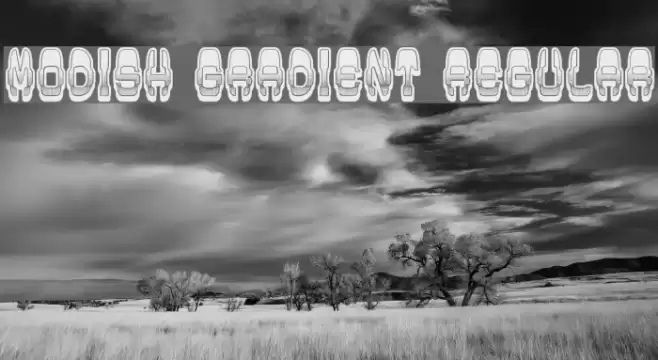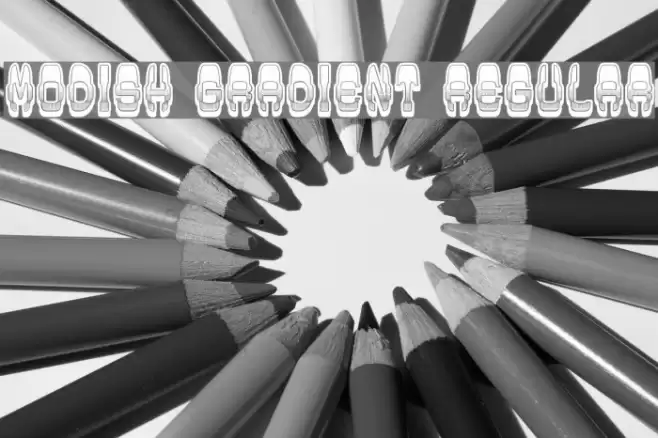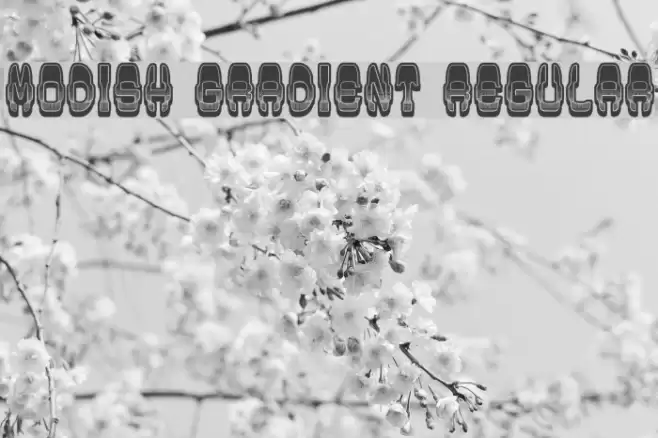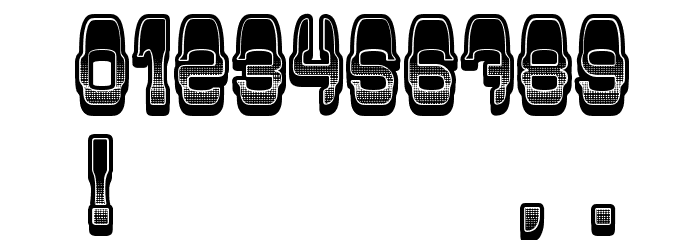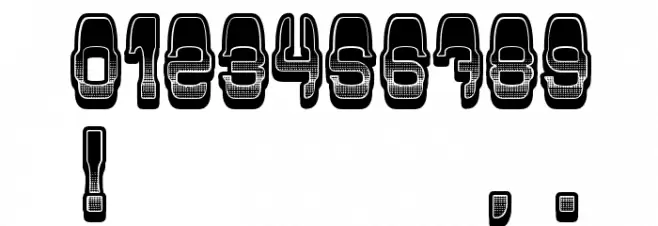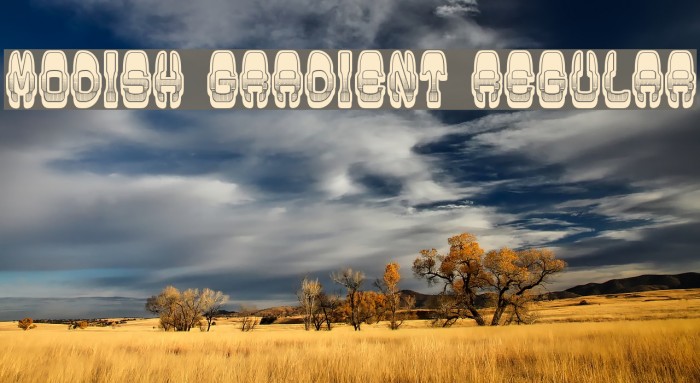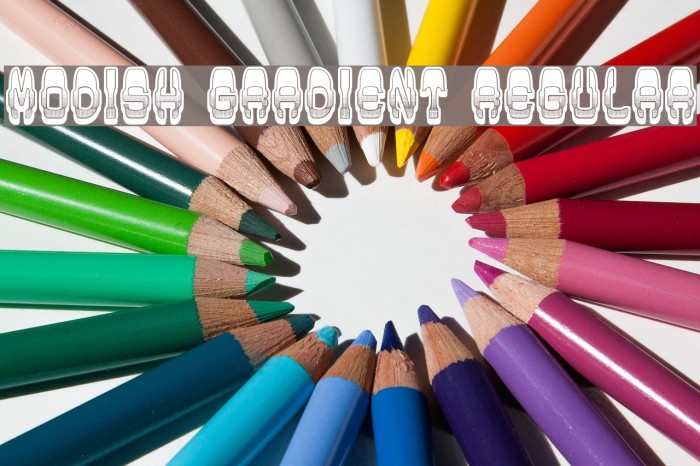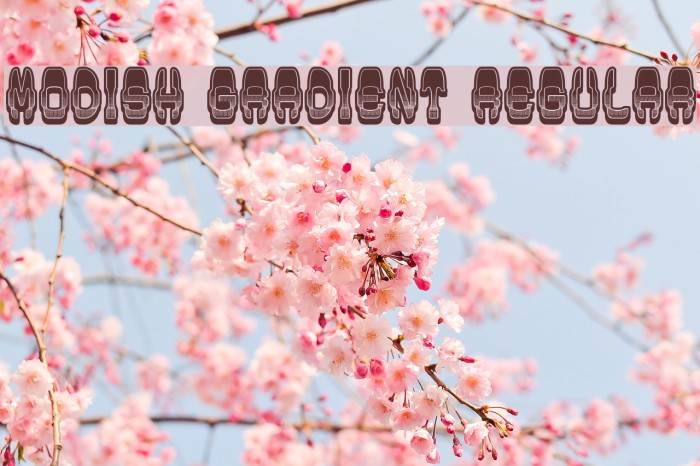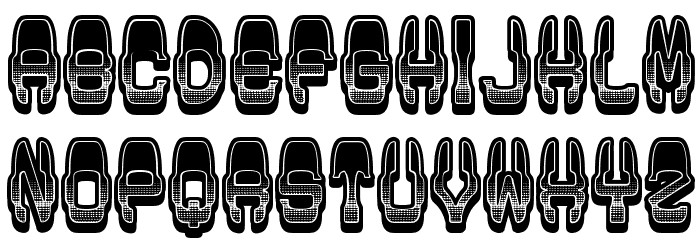
Modish Gradient Regular Font
Modish Gradient Regular Description
This font features a bold, decorative style with a unique gradient effect that gives it a three-dimensional appearance. The letters are outlined with a thick black border, and the interior is filled with a dotted pattern that transitions from dark to light, creating a striking visual contrast. The characters are wide and have a strong presence, making them ideal for attention-grabbing designs. The font includes uppercase and lowercase letters, numbers, and a selection of special characters, all maintaining the same bold and dynamic style.
A bold, decorative font with a gradient and dotted pattern for a 3D effect from Uncategorized fonts.
- Proposed Projects: Ideal for posters, headlines, logos, and any design requiring a bold, eye-catching typeface.
- Width: Expanded